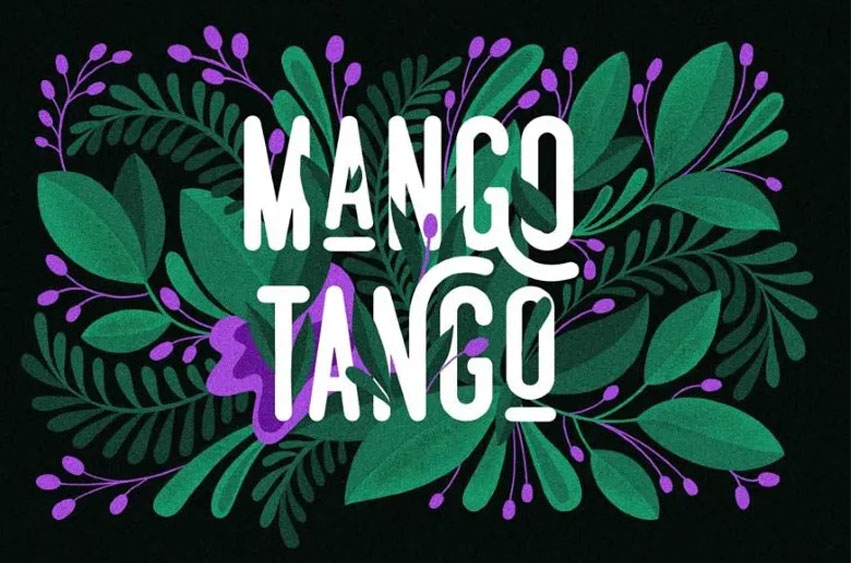
Mango Tango Font
Mango Tango Fontoffers a set of fonts in regulated well as rough and grunge styles.
The font includes uppercase letters, punctuation marks numbers along with characters that support multiple languages.